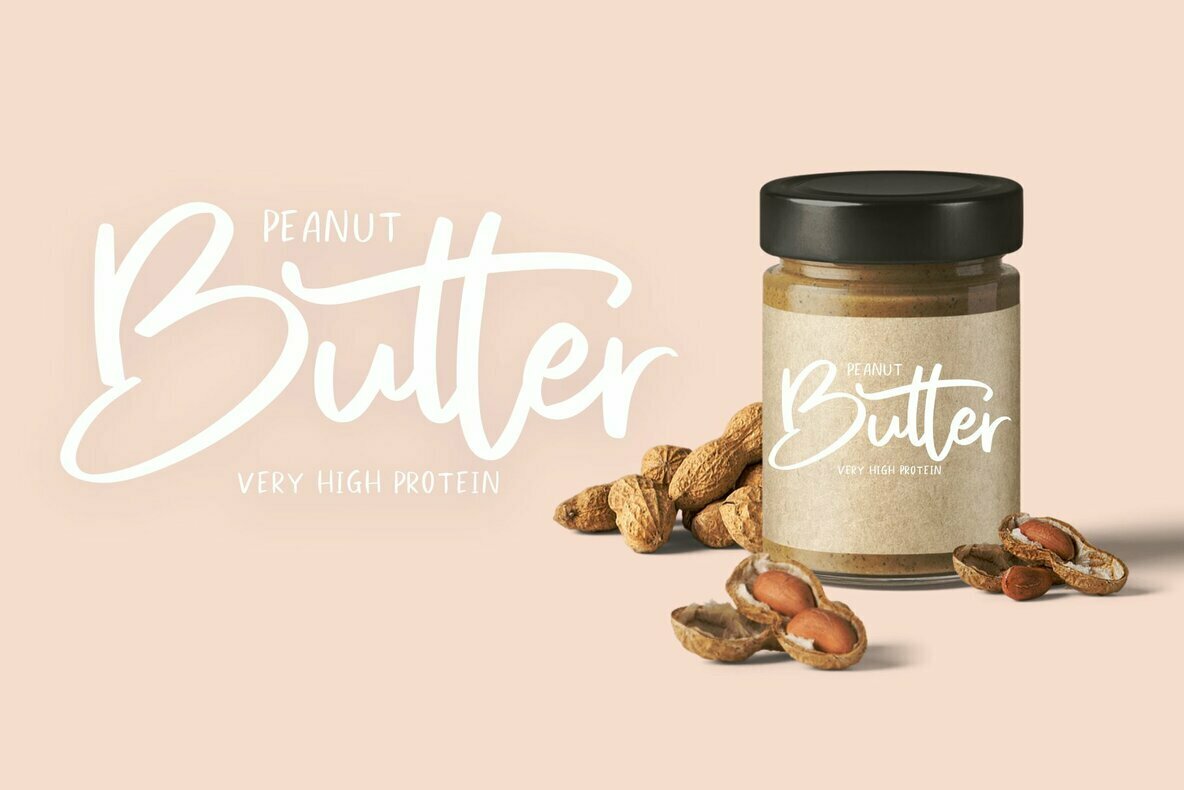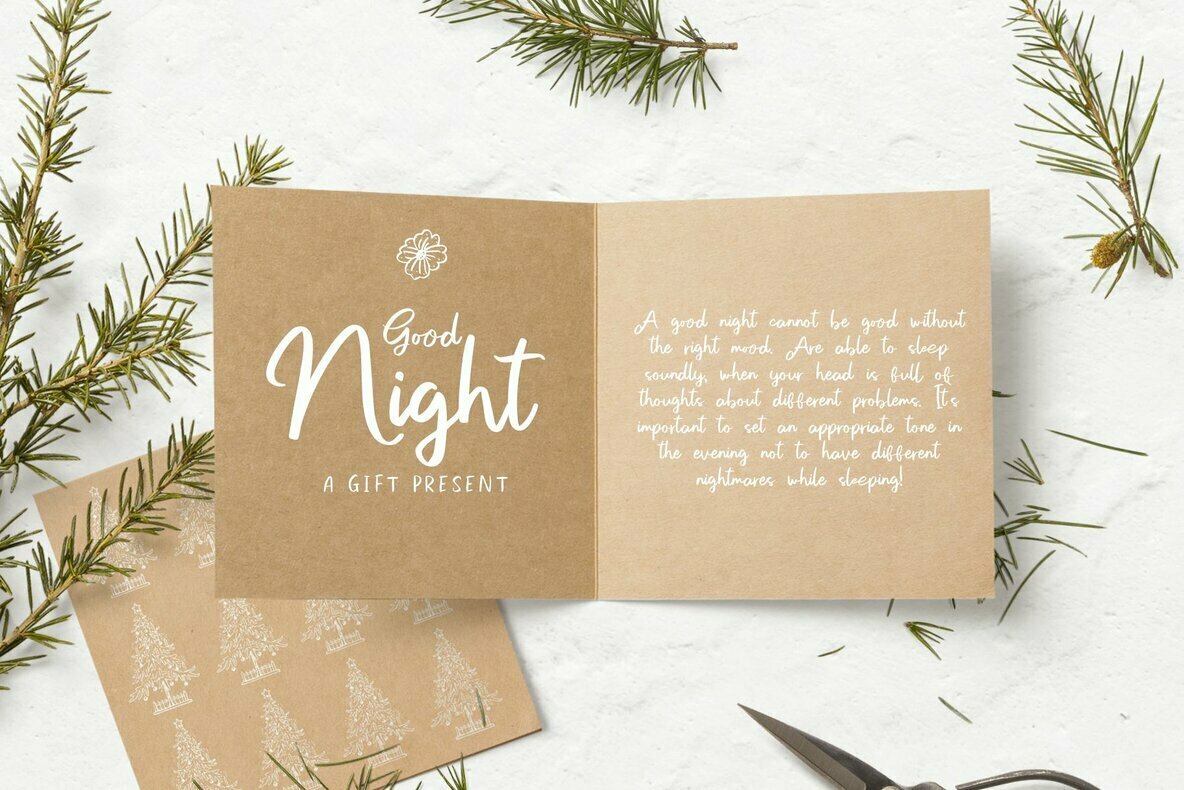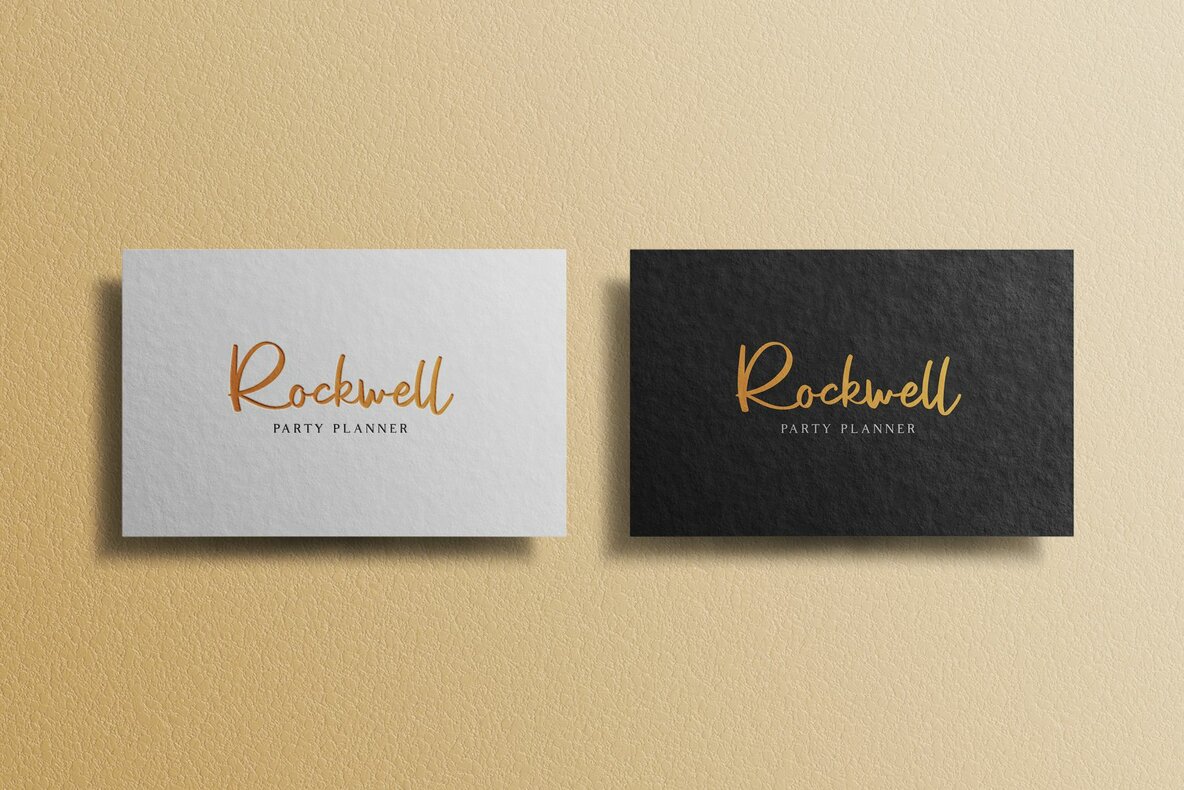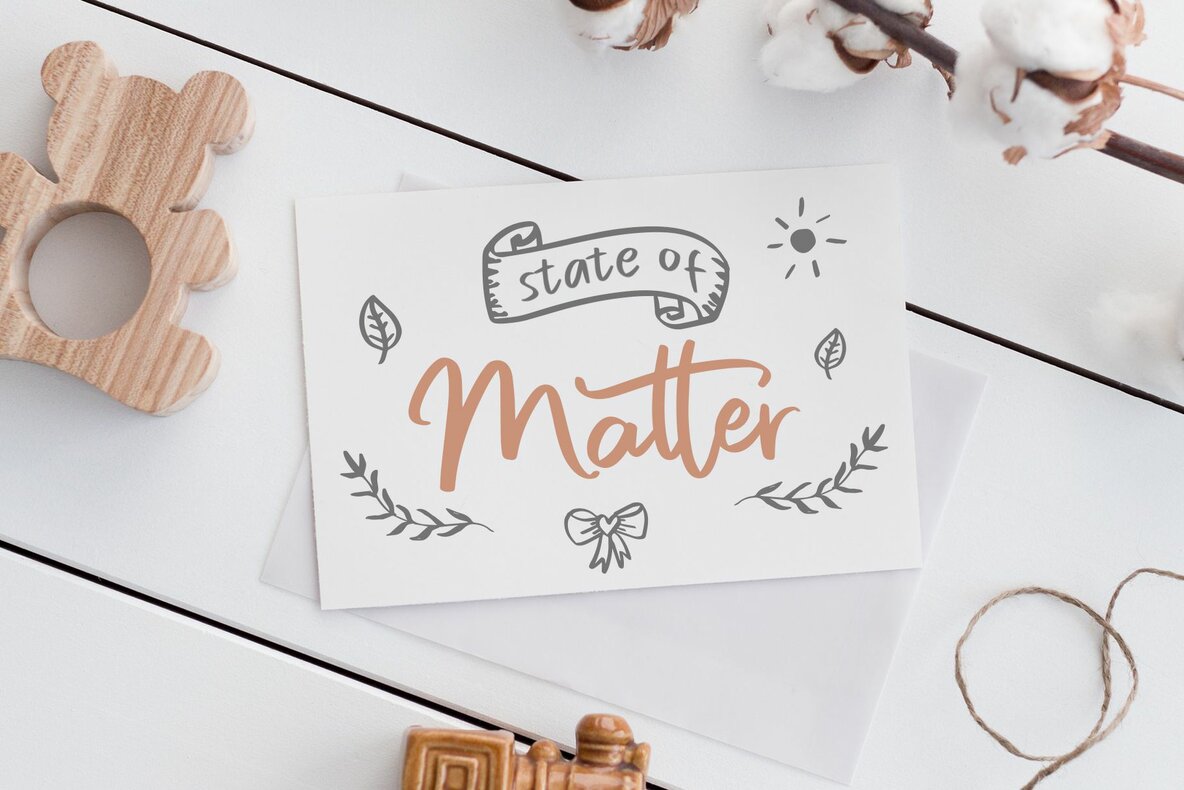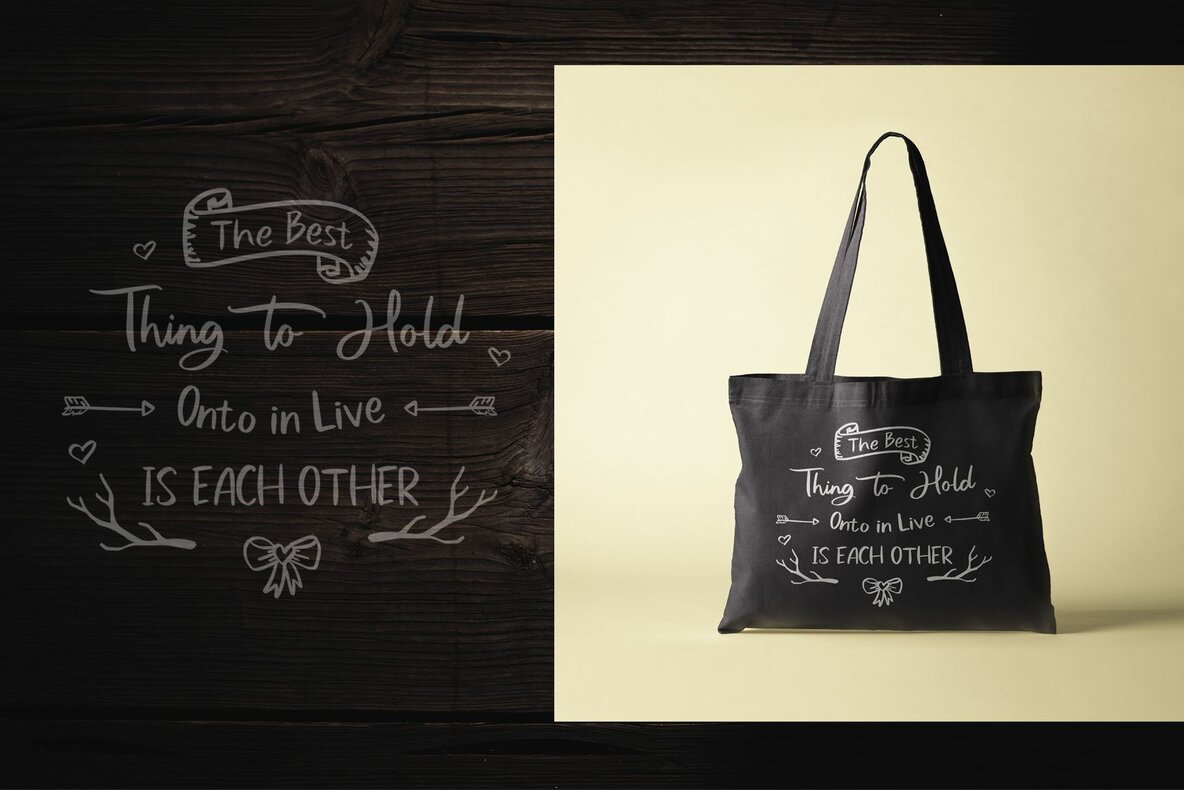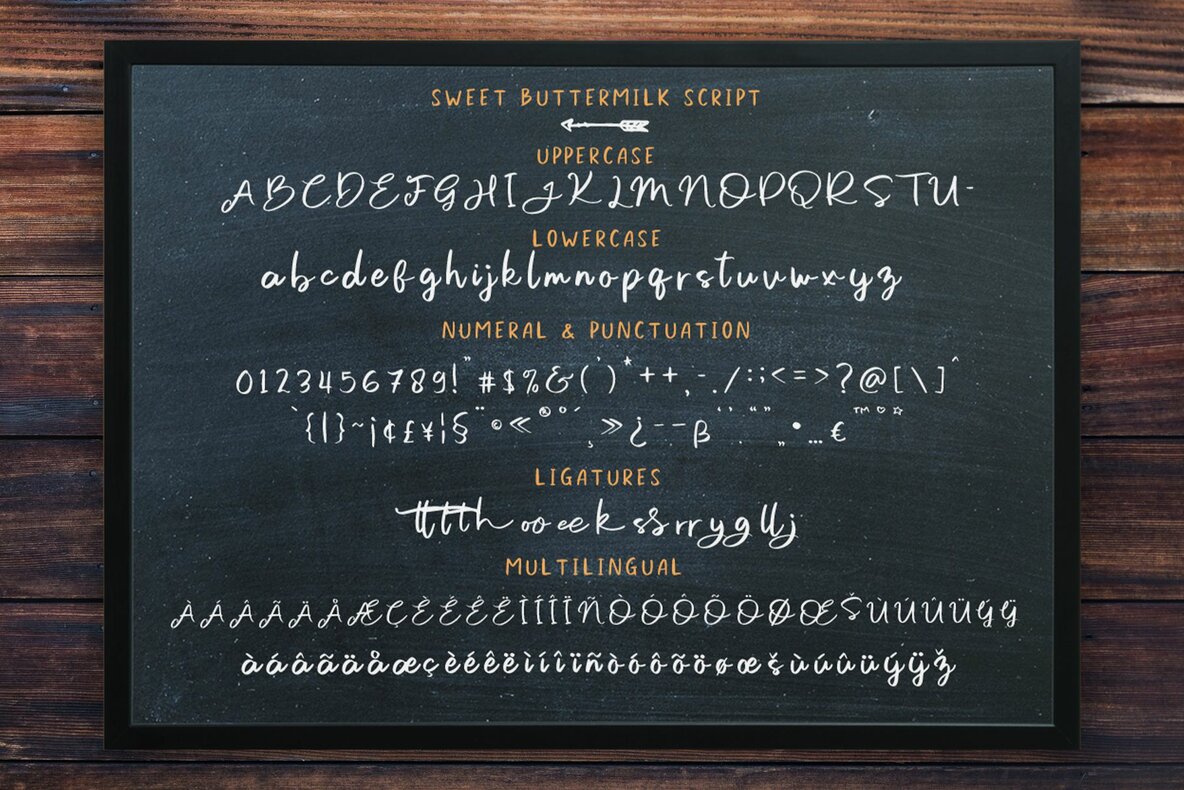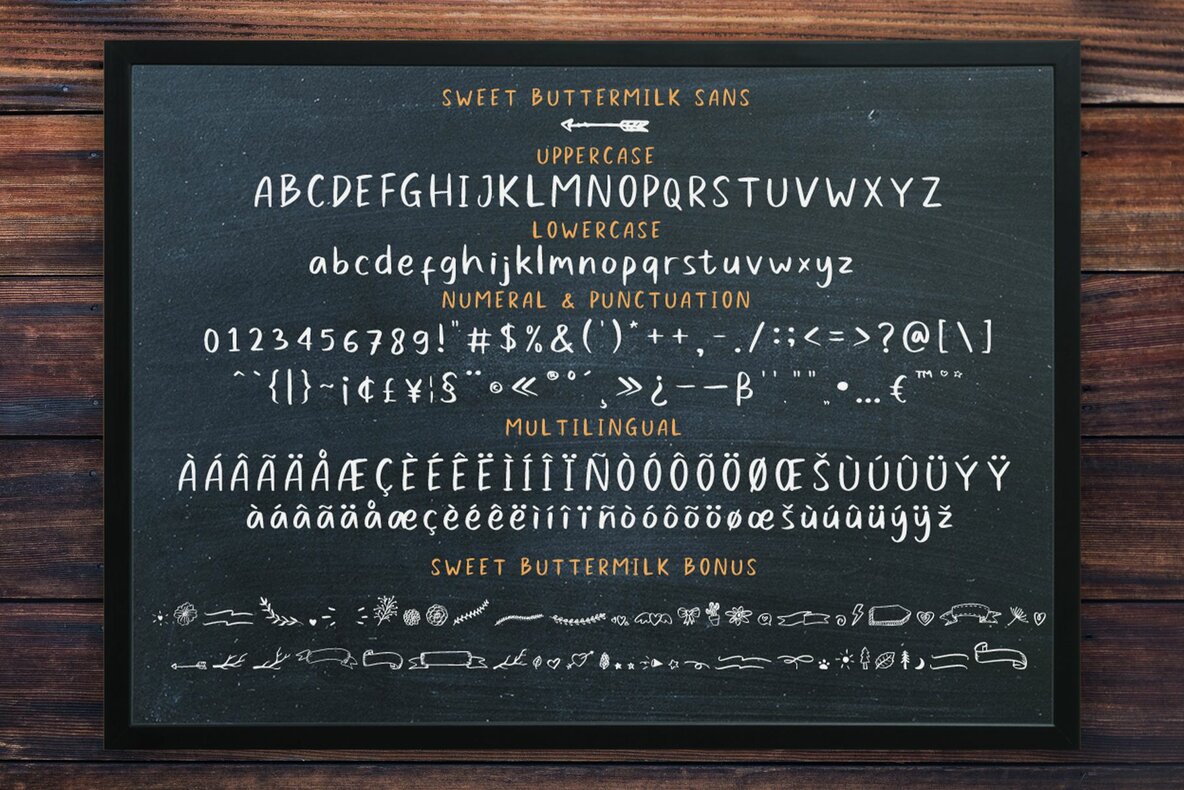
Sweet Buttermilk Font Duo
Sweet Buttermilk Font Duo by Craft Supply Co. embodies the charm of genuine handwriting, transforming text into engaging visual art. Its irregular, hand-lettered style introduces an authentic, personal touch, perfect for enhancing the appeal of your designs. The duo offers a versatile combination of fonts, allowing you to mix styles and add ornamental swashes or banners. This makes even a single word stand out magnificently. Ideal for fashion, e-commerce brands, trend blogs, and wedding boutiques, Sweet Buttermilk presents a chic appearance to any upscale business. Sweet Buttermilk includes: No special software is necessary to use the Sweet Buttermilk Font Duo, making it easy to integrate into your projects. Enjoy crafting with this delightful font set.Sweet Buttermilk: Handwritten Font Duo With Bonus